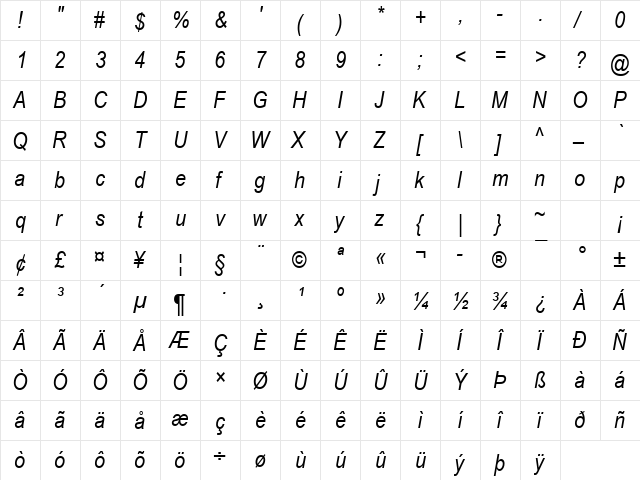
Arial Narrow Italic
| Foundry | Monotype Typography, Inc. |
| Designer | Robin Nicholas, Patricia Saunders |
Design Context for Arial Narrow Typeface
Arial Narrow is a composed and adaptable typeface that performs quietly and consistently across a wide range of design contexts. The dynamic lean of this cut emphasises speed and emphasis in any layout. Its narrow stance lets it pack a punch even in space-constrained designs.